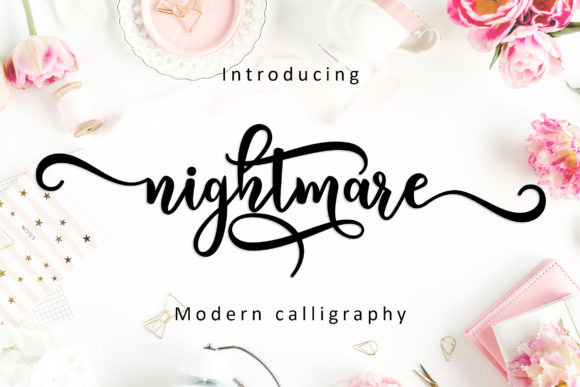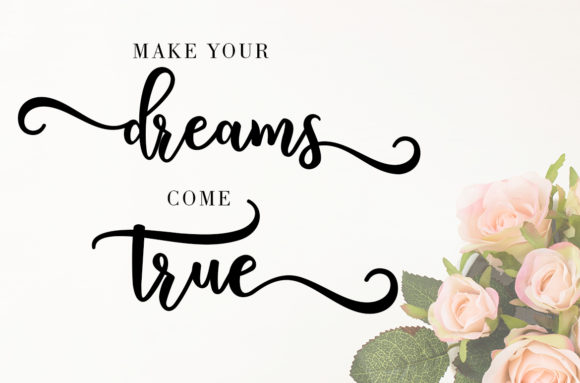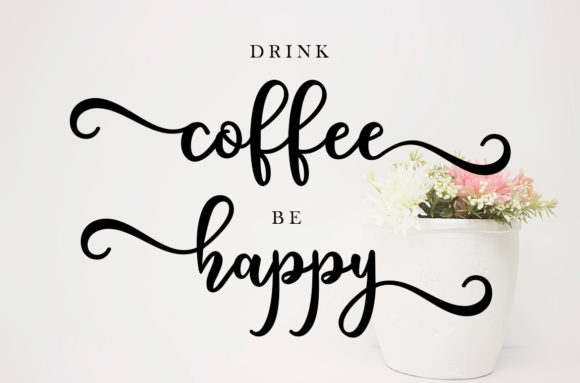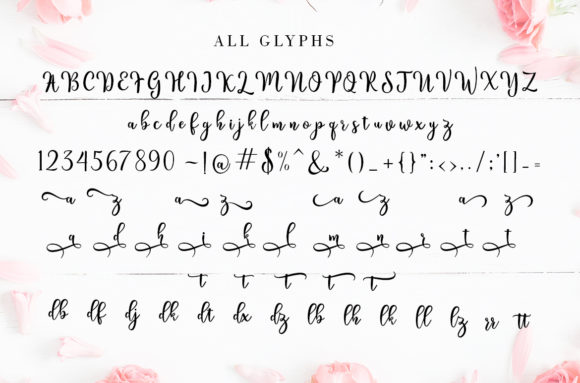
Nightmare Script Font
About Nightmare Script Font
What a beautiful nightmare: Nightmare is a one-of-a-kind script with amazing swashes. It will turn any crafting idea into a true standout!